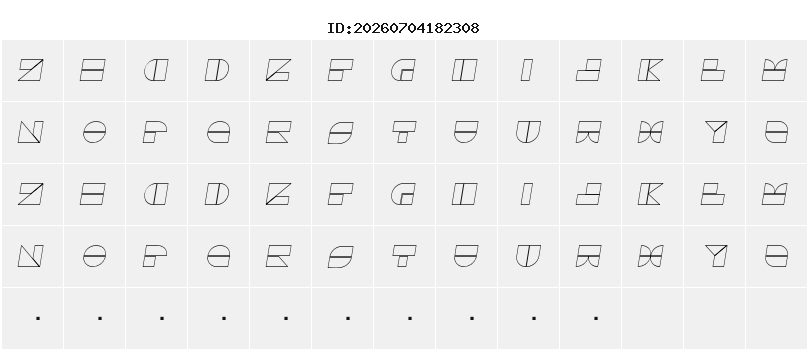
Drebiek Preview
• Font Name: Drebiek
• Font Style: Expanded Outline Italic
• Font ID: DanielAngermann: Drebiek Expanded Outline: 2008
• Full Font Name: DrebiekExpandedOutlineItalic
• PostScript Name: DrebiekExpandedOutlineItalic
• Character Count: 59
• Designer: Daniel Angermann
• Manufacturer: Daniel Angermann
About Drebiek.otf
Drebiek.otf is a modern, elegant sans-serif font designed for ultimate readability and visual harmony. Perfect for branding, headlines, web design, and print materials.